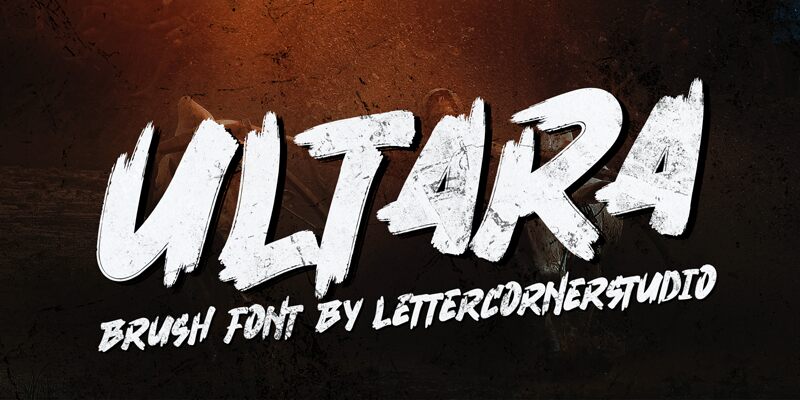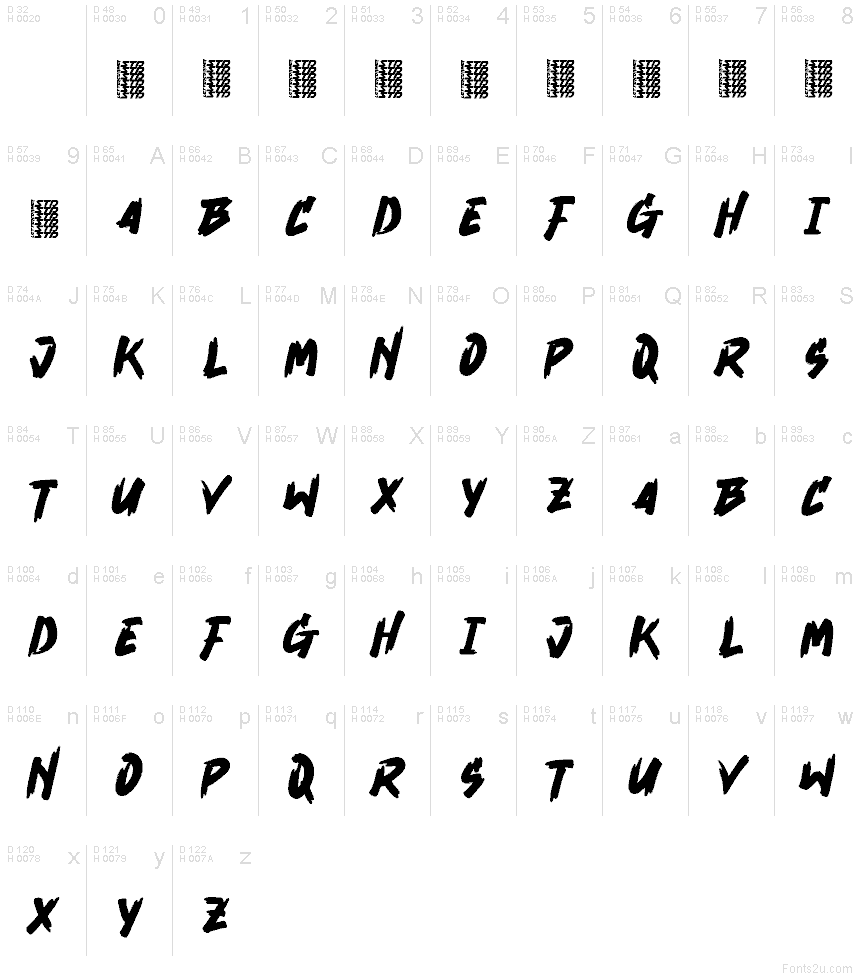
Ultara
Ultara font by Mocha Frappuccino is a brush font inspired by clean newspaper styles. Its bold layout is achieved with heavy strokes and undefined borders that give the characters an extra casual aura. Ultara carries itself as a lively typeface, an authentic choice for designs that require expressive, eye-catching texts that readers can immediately connect with.